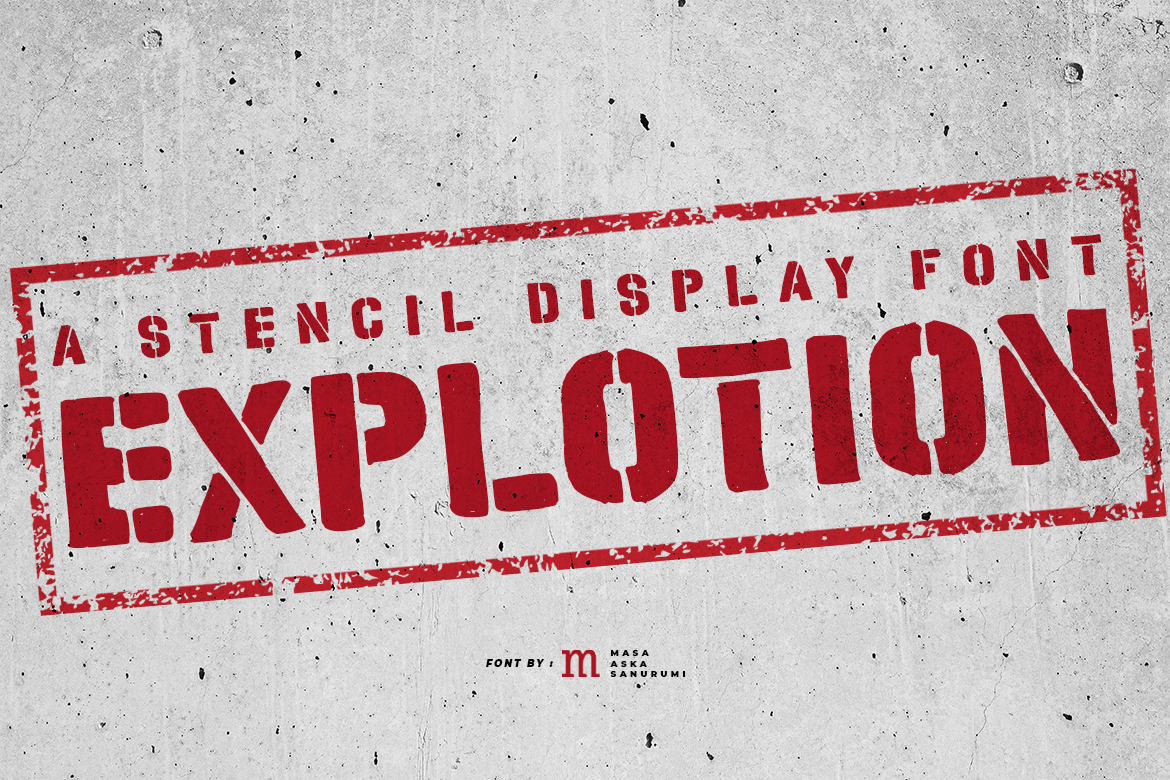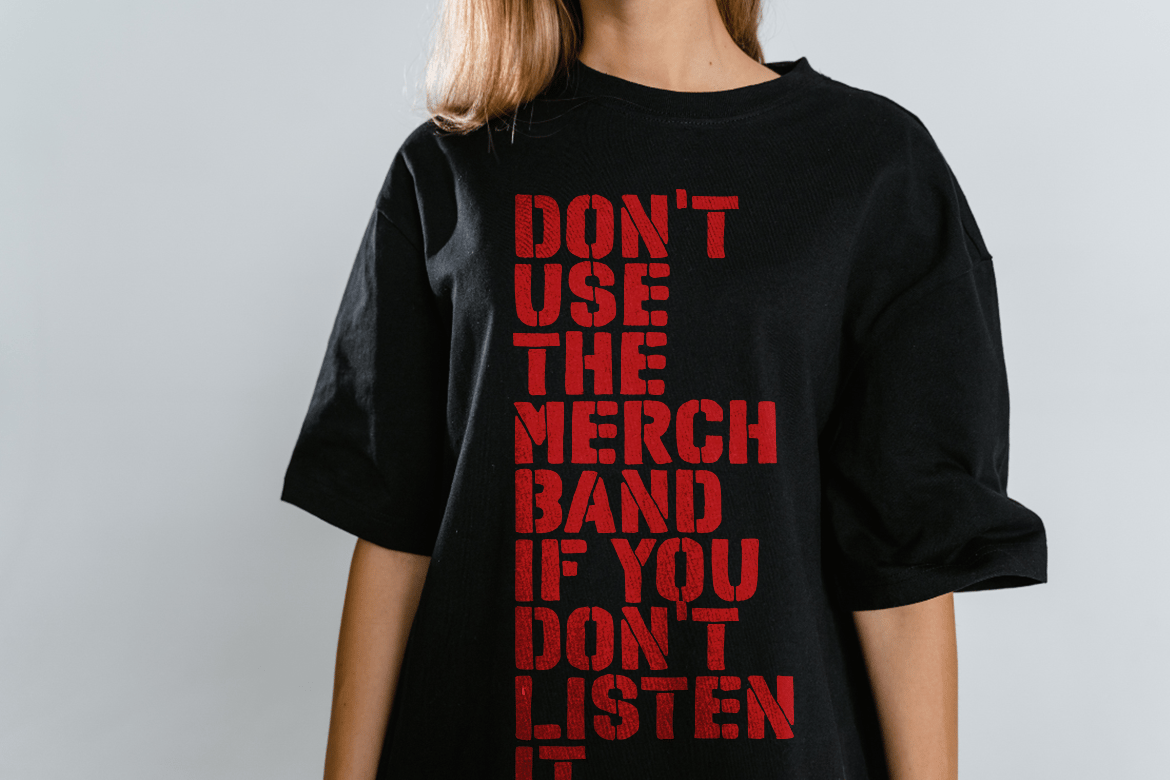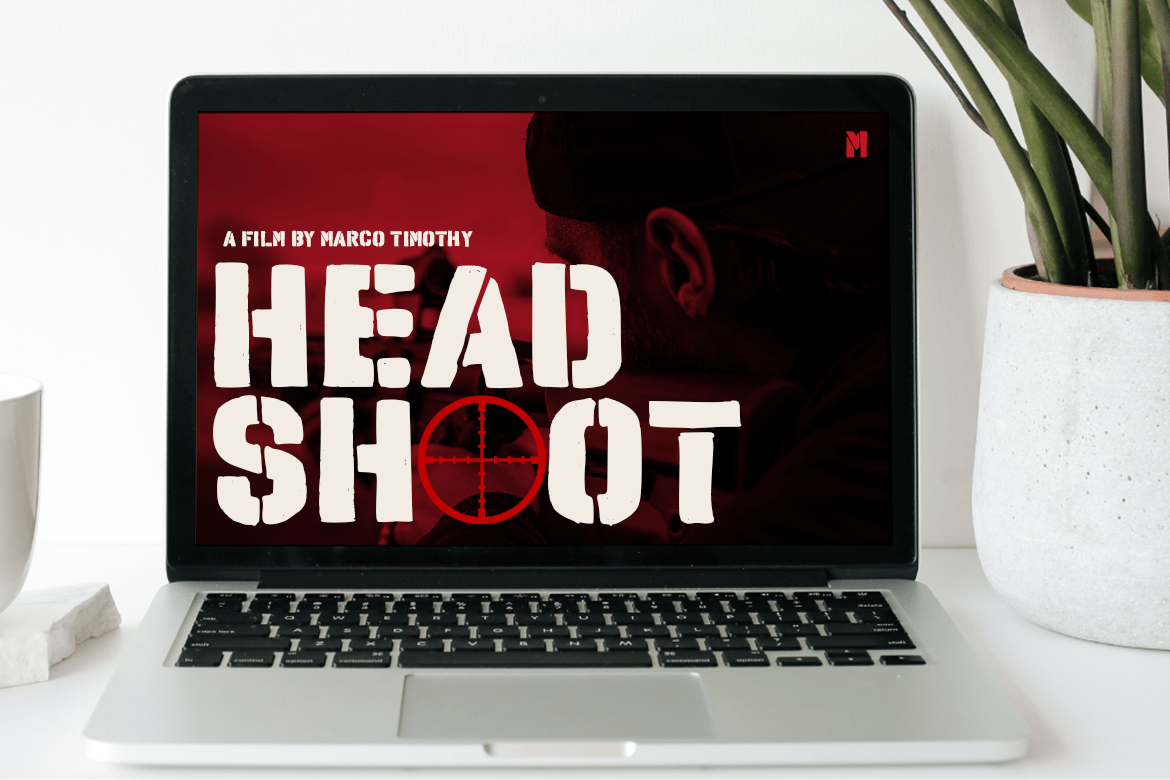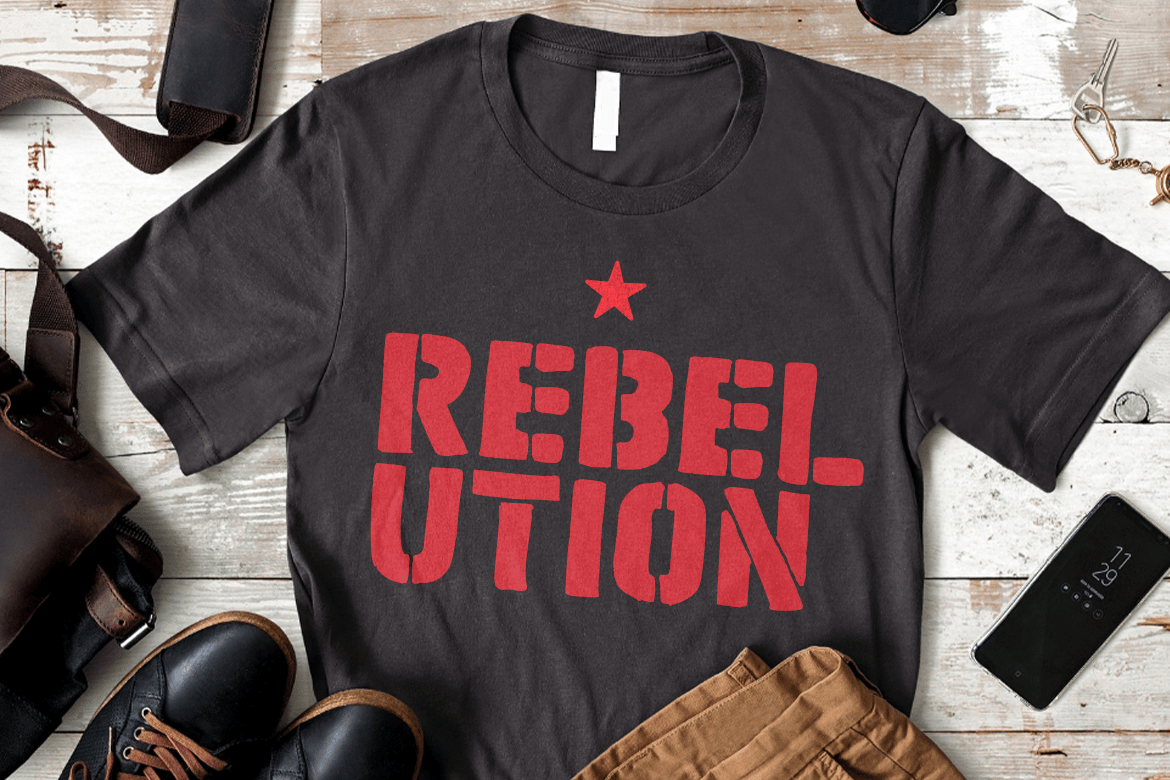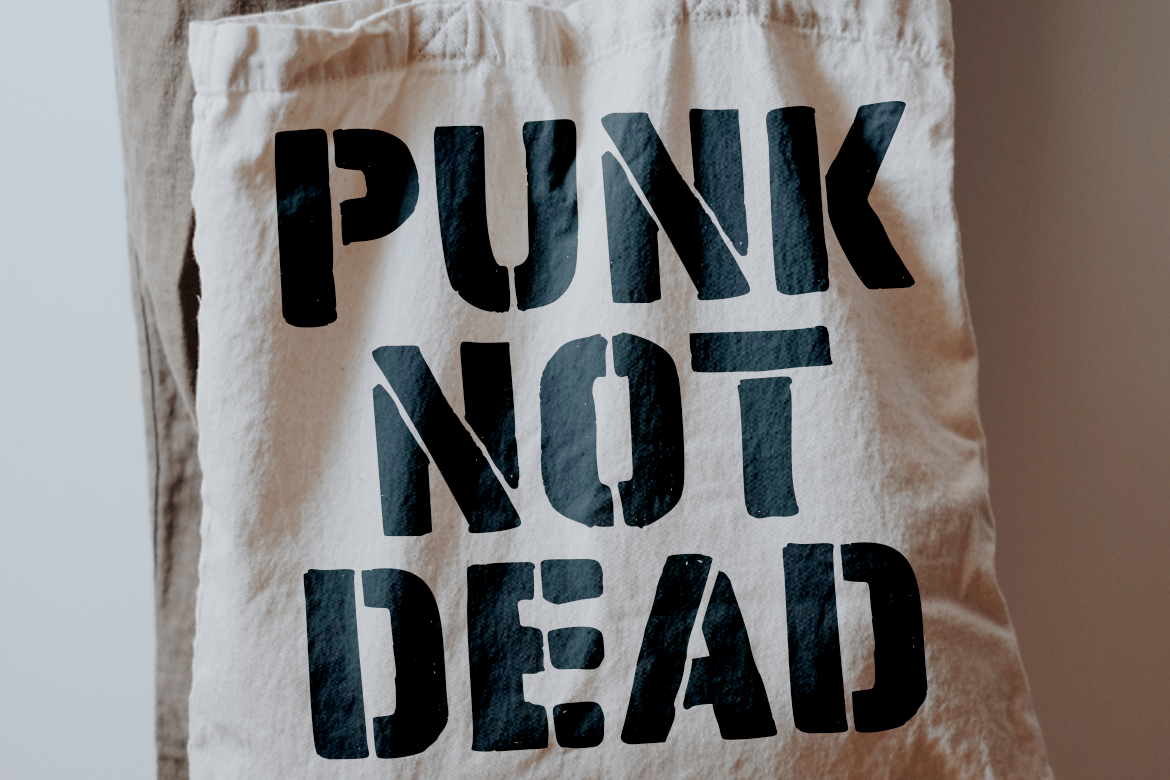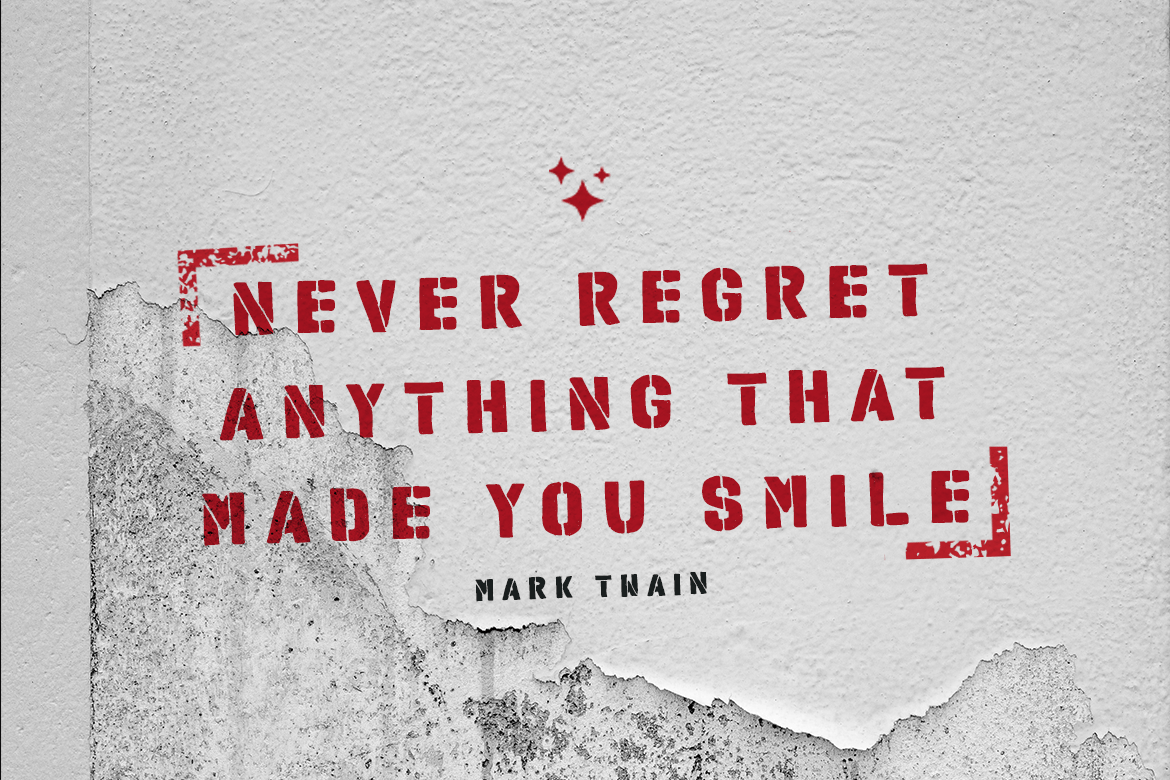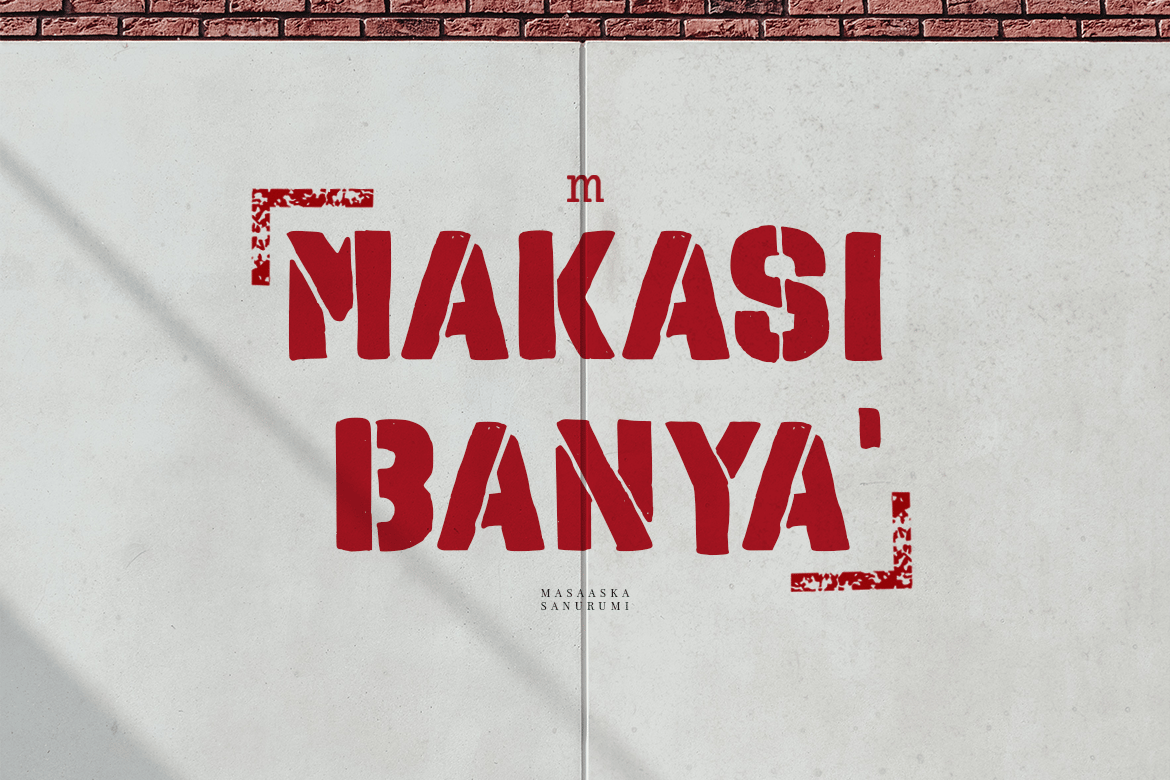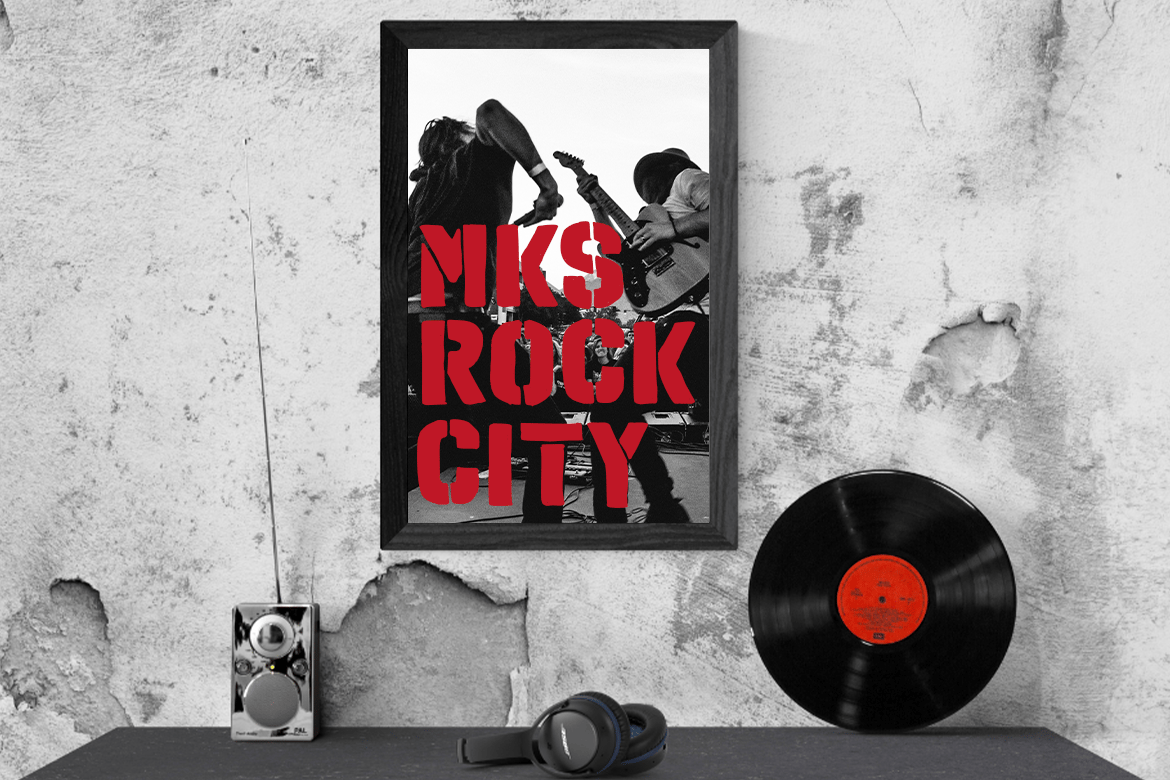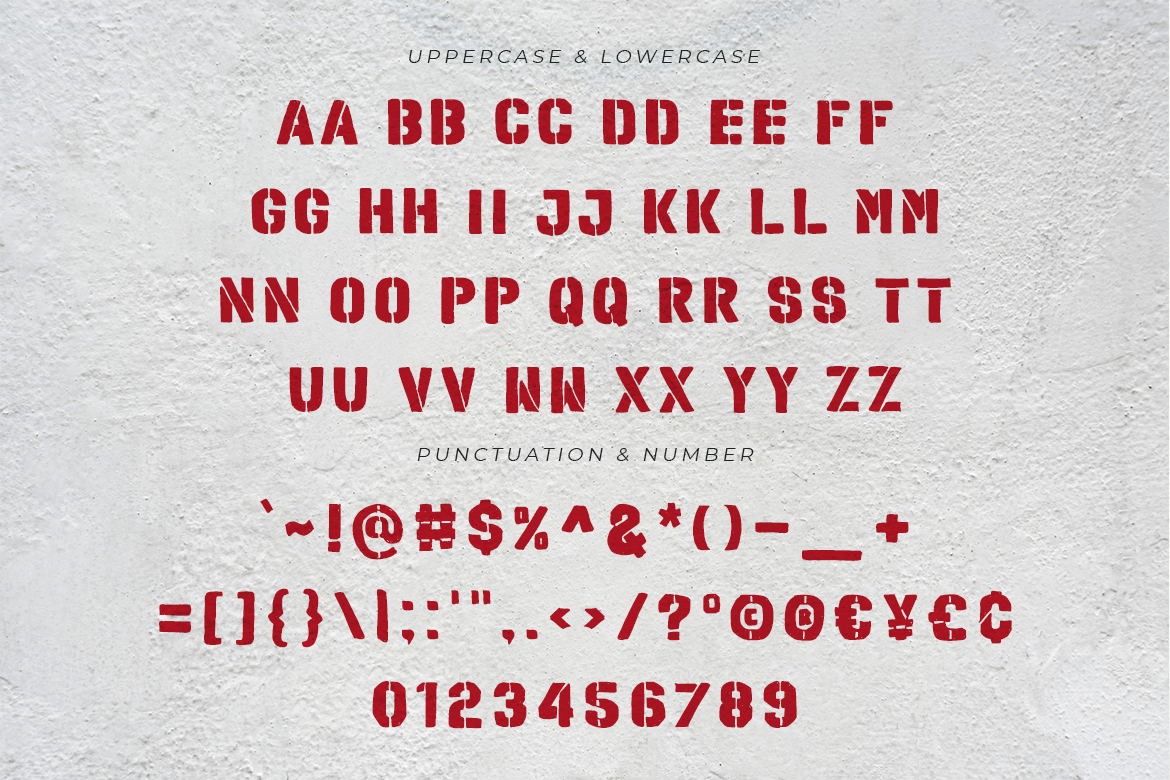
Explotion | A Stencil Display Font
Introducing, Explotion is a stencil display font suitable for your design project needs, such as; social media posts, quotes, overlays on images, posters, print needs, website banners, and more.
- A set of uppercase and lowercase glyphs
- Number, symbol, and punctuation